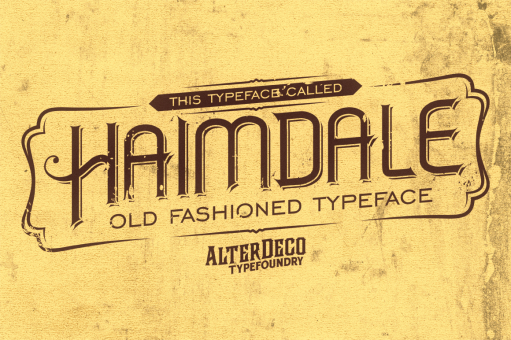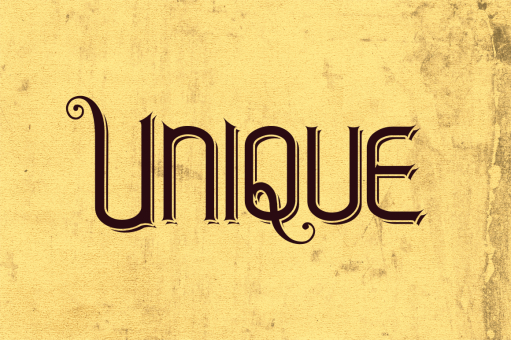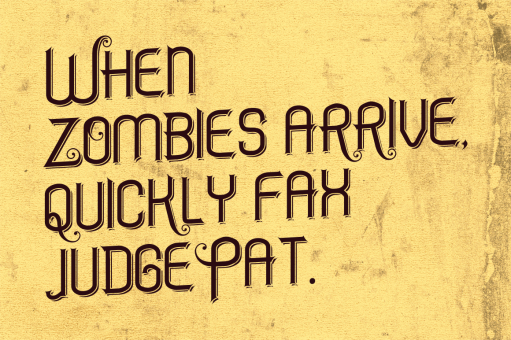
Haimdale typeface
Haimdale typeface, its an old fashioned typeface, inspired by victorian and modern typography. available in ttf and otf. thanks for your purchased..